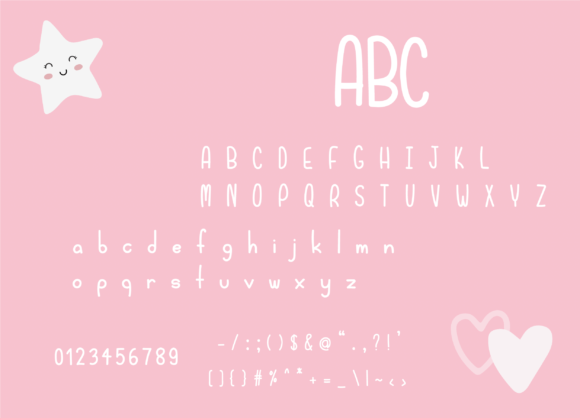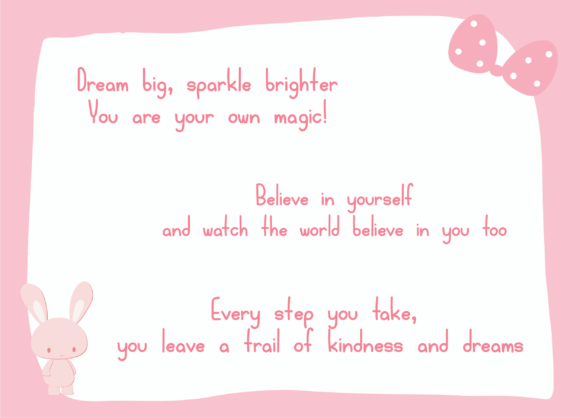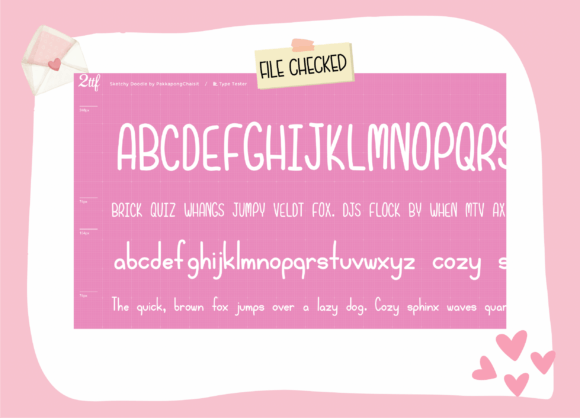
Introduction to Sketchy Doodle Font
As designers, we’ve all had those moments where we’re brainstorming ideas for a creative project and suddenly, a spark of inspiration hits us. It might be a glimpse of a quirky illustration, a burst of color, or even a handwritten note. For those who crave a more playful approach, the Sketchy Doodle Font is here to add a touch of whimsy to your designs. This delightful font is more than just a design resource – it’s a key to unlocking the magic of lighthearted creativity.
With its sketchy and doodle-inspired appearance, the Sketchy Doodle Font is perfect for designers looking to add a high-quality, free download to their toolkit. Whether you’re working on a project that requires a transparent background or a design that screams cuteness, this font is sure to bring a sense of joy and playfulness to your work. So, let’s dive into the world of Sketchy Doodle Font and discover the endless possibilities it holds for designers and creatives alike.
Key Features of Sketchy Doodle Font
- Unique, hand-drawn design with a playful, whimsical feel, perfect for creative projects and design resources.
- Available in 6 different styles, each with its own unique characteristics and flair, making it a versatile design resource.
- Perfect for designers, artists, and creatives looking for a unique and creative design resource for their next project.
Honest Review: Sketchy Doodle Font
I recently had the chance to experiment with the Sketchy Doodle Font, and I must say, it’s a fun and creative addition to any design project. The font is perfect for those who want to add a touch of whimsy and playfulness to their work.
- ✨ The font’s transparent background makes it easy to combine with other design elements and textures.
- ✨ The Sketchy Doodle Font is a high-quality design resource that’s perfect for creative projects.
- ⚠️ The font may not be suitable for formal or professional projects, as it can come across as too casual.
- ⚠️ Some users may find the font’s quirky style a bit too much to handle.
Overall, I was impressed with the Sketchy Doodle Font’s unique charm and versatility. It’s a great addition to any designer’s toolkit, and I’m excited to see how others will use it in their creative projects.
The Sketchy Doodle Font is a high-quality design resource ideal for creative projects. With its unique, hand-drawn style, it can add a personal touch to any design.
Tips for Getting the Most Out of Sketchy Doodle Font
To get the most out of the Sketchy Doodle Font, use it on a transparent background to create a layered look. Experiment with different font sizes and styles to add visual interest to your design.
The Sketchy Doodle Font is perfect for creating invitations, social media graphics, and blog posts. Its unique style can also be used for branding and marketing materials.
Can I customize the Sketchy Doodle Font to fit my design needs?
Yes, the Sketchy Doodle Font is highly customizable, allowing you to adjust the font size, color, and style to suit your creative project. You can also use the font in combination with other design elements, such as illustrations and graphics, to create a unique visual identity.